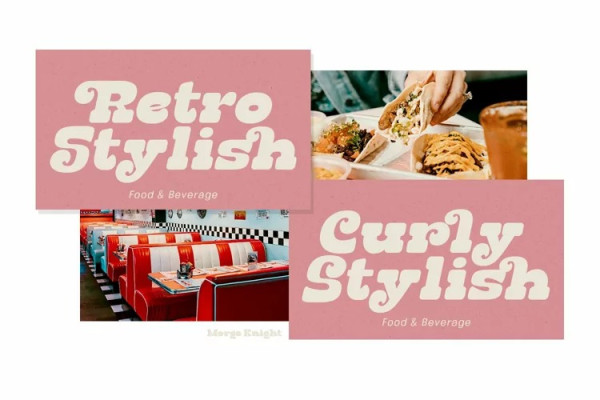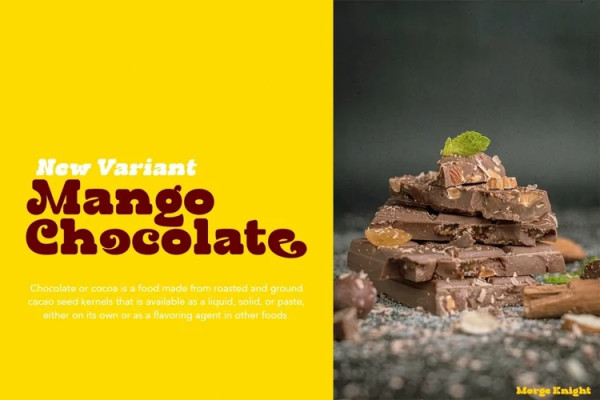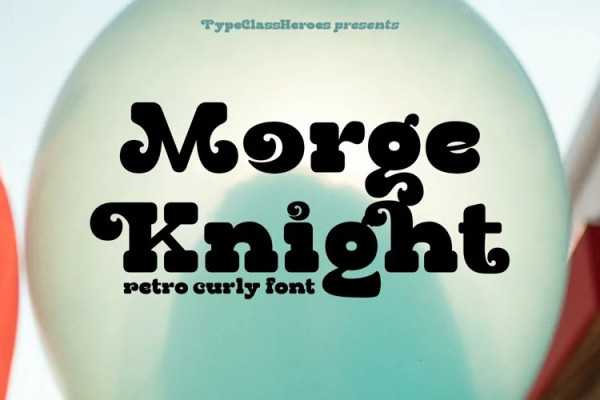
Morge Knight Font
Morge Knight Font is a retro font come with curly and rounded old 80’s retro style serif. You can explore and combine creating rhythm for comfortable reading. Vintage and refined use this font for any branding, product packaging, invitation, quotes, headline, label, poster, logo etc.